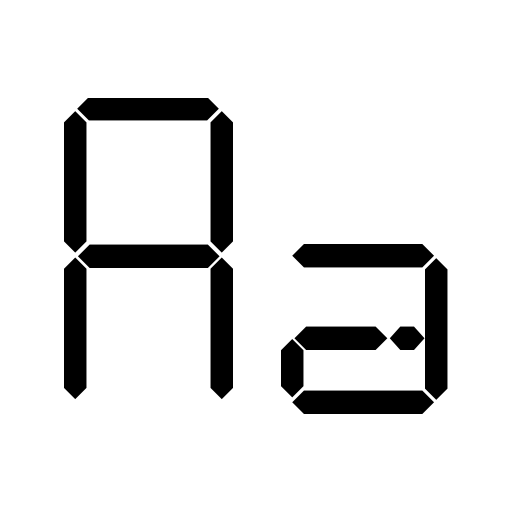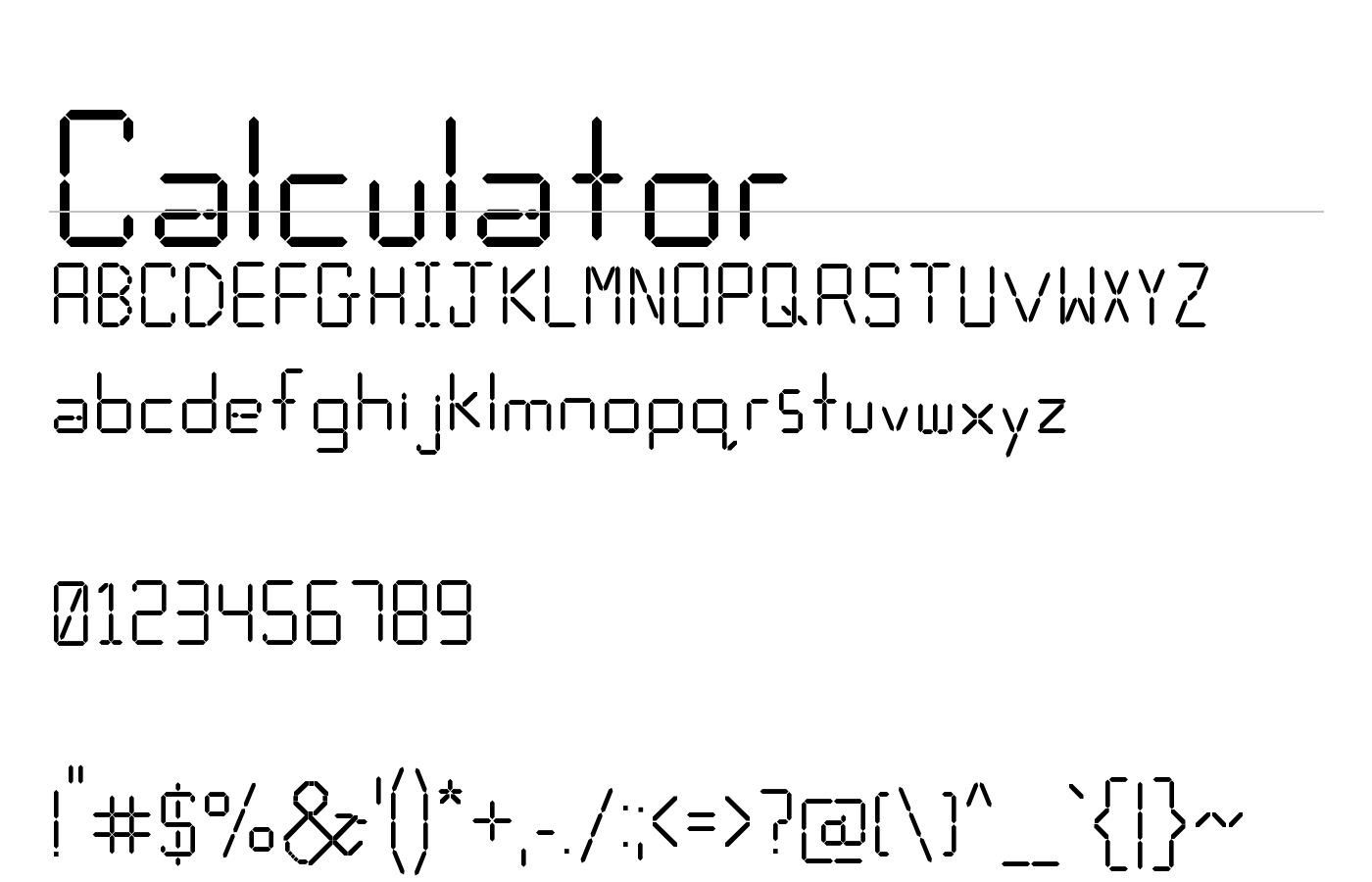
Calculator Font is a distinctive sans serif typeface that mimics the segmented digital display style found on classic electronic calculators. It features a monospaced, narrow width with clean, geometric lines and consistent stroke weight, evoking a technical and retro-futuristic vibe. This font is ideal for projects that require a modern, digital aesthetic such as tech branding, digital interfaces, or retro-themed designs.
Calculator Font
About Calculator Font